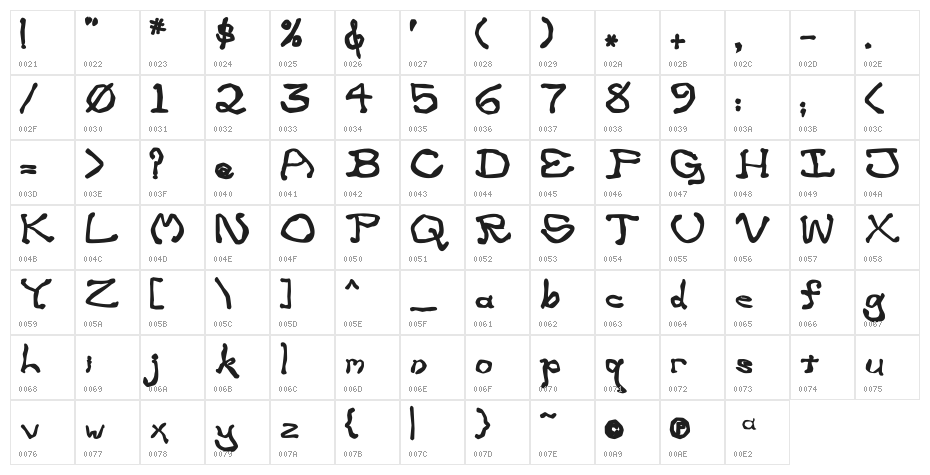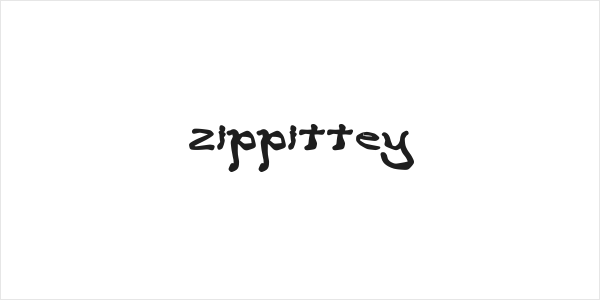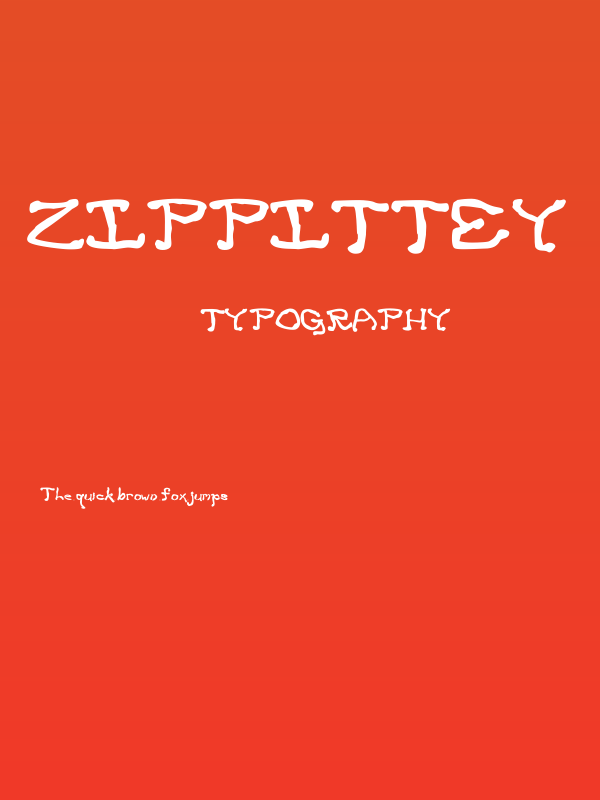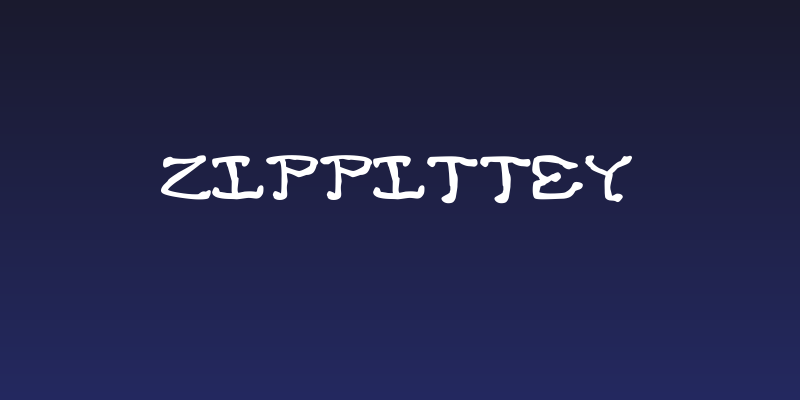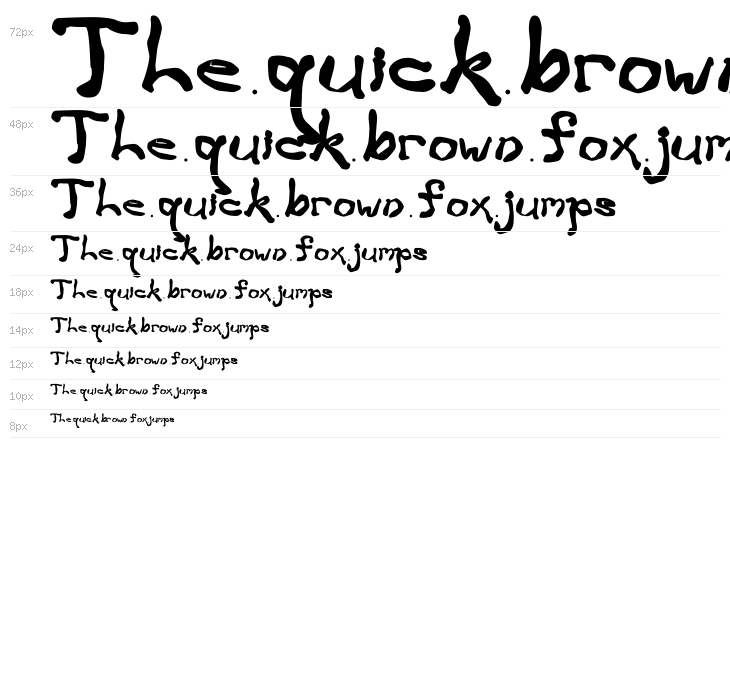
zippittey Font
zippittey Description
This font exhibits a playful and whimsical style, characterized by its irregular and hand-drawn appearance. The letters have a casual, almost cartoonish feel, with uneven strokes and varying thicknesses that give it a dynamic and lively look. The uppercase and lowercase letters maintain a consistent style, with rounded edges and a slightly tilted orientation, adding to its informal charm. The numerals and special characters follow the same playful design, making the font suitable for creative and fun projects. Its unique style makes it stand out, perfect for capturing attention and conveying a sense of creativity and spontaneity.
| Proposed Projects | Ideal for children's books, comic strips, playful branding, or any project requiring a fun and informal touch. |